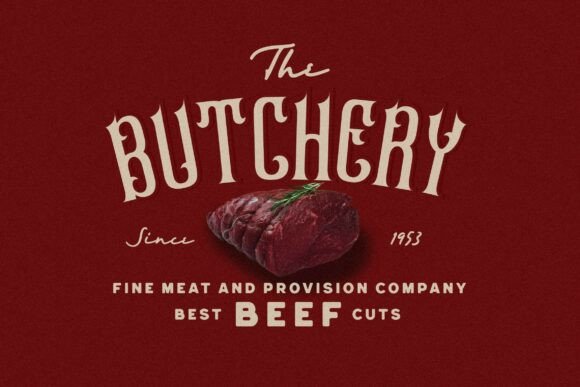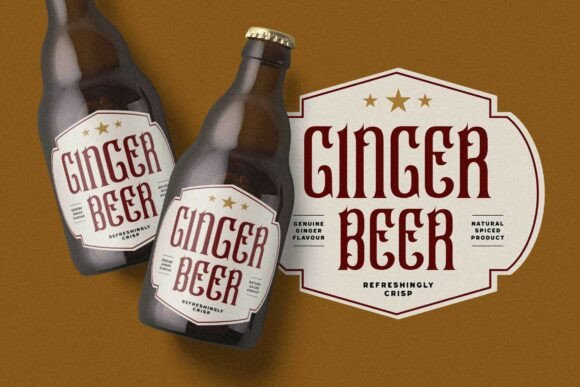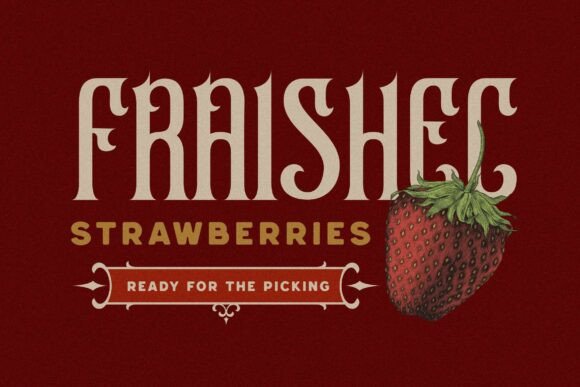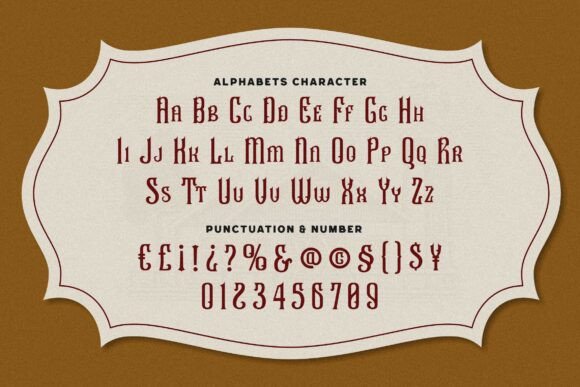
Akoher Font: Elevate Your Designs with Vintage Charm
Are you looking for a font that exudes handcrafted charm and premium vibes? Look no further than Akoher, a stunning vintage decorative blackletter font that is sure to elevate your designs. With its bold character shapes, refined decorative details, and heritage-inspired aesthetic, Akoher is the perfect choice for designers and crafters seeking to add a touch of nostalgia and sophistication to their work.
The Essence of Early 20th-Century Packaging and Signage
Akoher font is deeply rooted in the design traditions of the early 20th century, specifically the era of classic packaging and signage. Each letterform is meticulously crafted with tall, narrow shapes and dramatic vertical emphasis, reminiscent of the iconic signage and labels of the time. The font features ornamental cut-ins, sharp spurs, bracketed wedges, and curled terminals, all of which combine to create a bold, heritage silhouette that commands attention.
Handcrafted Charm and Premium Vibes
Akoher’s unique blend of bold and refined elements gives every letter a sense of handcrafted charm, perfect for designs that require a premium feel. The font’s decorative details, such as the intricate cut-ins and curled terminals, evoke a sense of artisanal craftsmanship, making it an excellent choice for projects that require a touch of elegance and sophistication. Whether you’re designing labels for artisanal foods, heritage-inspired campaigns, or apothecary packaging, Akoher font is sure to impress.
Versatile Applications for Designers and Crafters
Akoher font is incredibly versatile, making it suitable for a wide range of design applications. Some ideas for using Akoher include:
- Ginger beer and soda labels: Add a touch of vintage charm to your beverage packaging with Akoher’s bold, heritage-inspired letterforms.
- Heritage-inspired campaigns: Use Akoher to evoke a sense of nostalgia and tradition in your marketing materials.
- Posters: Create eye-catching posters for festivals, events, or promotions with Akoher’s dramatic vertical emphasis and ornamental cut-ins.
- Farm-stand fruit branding: Give your farm-fresh produce a premium feel with Akoher’s handcrafted charm.
- Apothecary packaging: Use Akoher to create elegant, heritage-inspired labels for your artisanal products.
- Editorial titles: Add a touch of sophistication to your editorial designs with Akoher’s bold, refined letterforms.
- Unique blend of bold and refined elements: Akoher’s distinctive letterforms are both eye-catching and elegant.
- Handcrafted charm: Akoher’s decorative details evoke a sense of artisanal craftsmanship.
- Premium vibes: Akoher is perfect for designs that require a touch of sophistication and elegance.
- Versatility: Akoher can be used in a wide range of design applications.